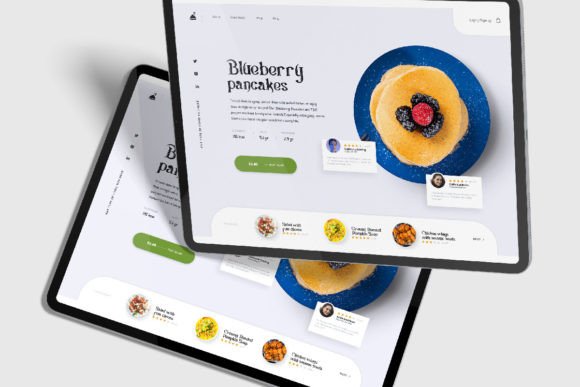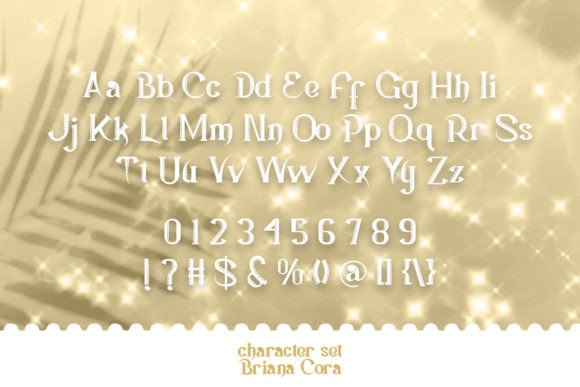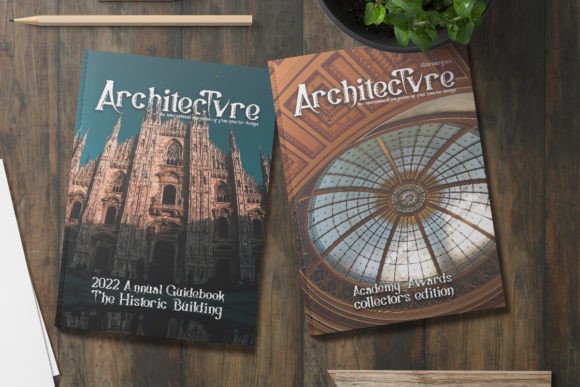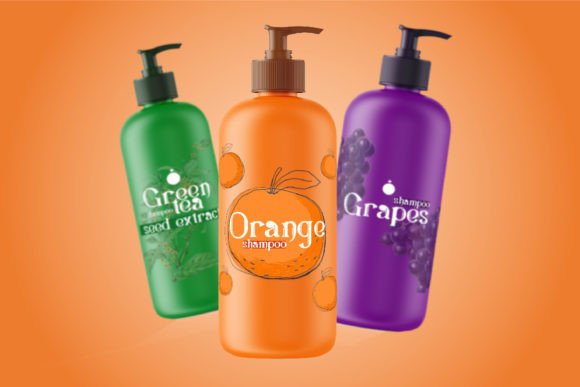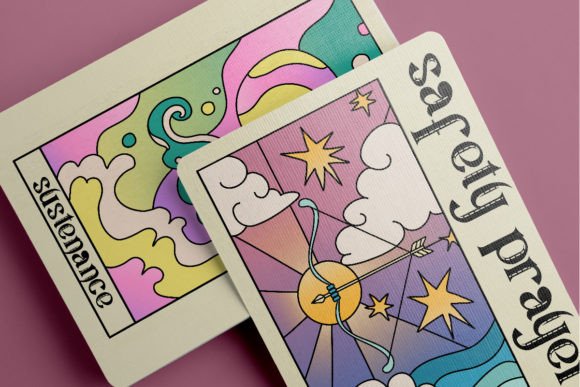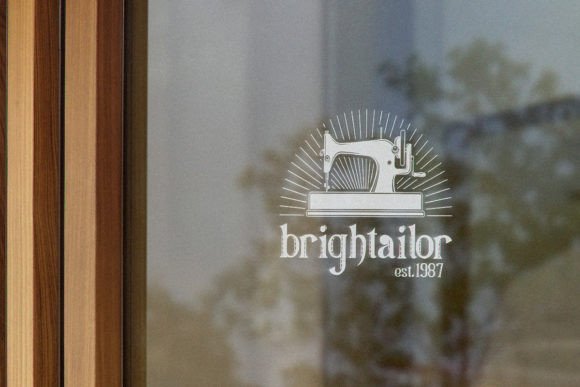
Briana Cora Font: Elevate Your Designs with a Cool and Unique Display Font
In the world of typography, a font can make or break a design. It’s the foundation upon which the entire visual identity is built. For designers and crafters looking to add a touch of personality to their creations, the Briana Cora font is an excellent choice. This cool and unique display font is neatly crafted and highly detailed, making it a wonderful asset to any font library.
What Makes Briana Cora Font Stand Out?
Briana Cora is not just another font; it’s a statement piece. Its unique design elements set it apart from more traditional fonts, allowing designers to add a touch of whimsy and flair to their work. Whether you’re creating a logo, a poster, or a digital graphic, this font has the potential to elevate your design and make it more engaging.
One of the key features of Briana Cora is its high level of detail. The font is crafted with precision, ensuring that every letter and character is clear and legible, even at larger sizes. This makes it perfect for display purposes, such as headlines, titles, and promotional materials.
Versatility of Briana Cora Font
The versatility of Briana Cora is another one of its strong suits. This font can be used across a wide range of topics and industries. Whether you’re working on a project for a fashion brand, a tech startup, or a creative agency, Briana Cora can adapt to fit your needs. Its neutral yet stylish design ensures that it won’t overpower your message, but rather complement it.
For crafters, Briana Cora offers endless possibilities. From handmade cards and invitations to DIY projects and crafts, this font can add a professional touch to your creations. Its unique style will make your work stand out, giving you an edge over more generic, mass-produced items.
Benefits of Using Briana Cora Font
- Unique Style: Briana Cora offers a fresh and distinctive look that can help your designs stand out.
- Highly Detailed: The font’s precision crafting ensures clarity and legibility, even at larger sizes.
- Versatile: Suitable for a wide range of projects and industries, from digital graphics to handmade crafts.
- Ease of Use: Designed to be user-friendly, making it easy to incorporate into your projects.
How to Use Briana Cora Font Effectively
To get the most out of Briana Cora, consider the following tips:
- Pair with Complementary Fonts: Use Briana Cora as a headline font and pair it with a simpler font for body text to create visual hierarchy.
- Experiment with Sizes and Colors: Don’t be afraid to play around with different sizes and colors to find the perfect combination for your design.
- Consider Your Audience: Think about the tone and style that will resonate with your target audience and adjust your use of the font accordingly.
Briana Cora font is a cool and unique display font that can add a touch of personality and style to any design project. Its highly detailed craftsmanship, versatility, and ease of use make it an excellent choice for designers and crafters alike. Whether you’re looking to create a stunning visual display or add a professional touch to your handmade crafts, Briana Cora is sure to become a favorite in your font library.